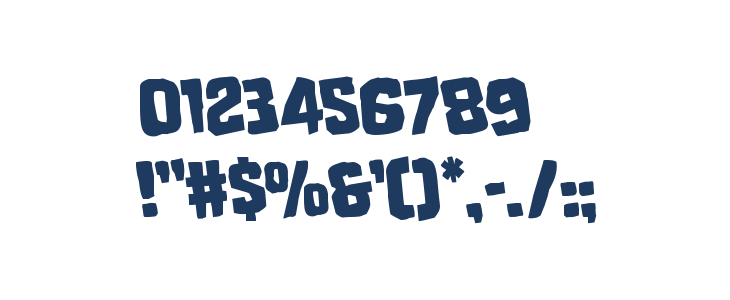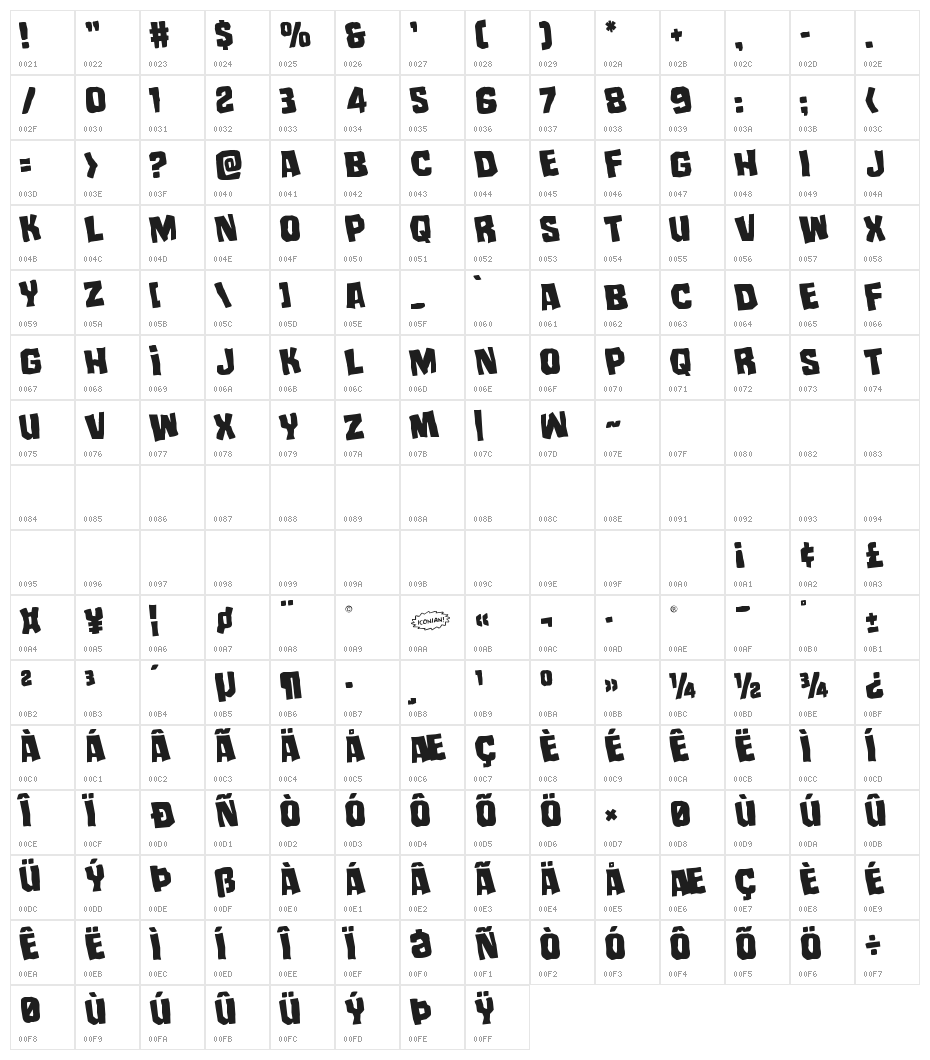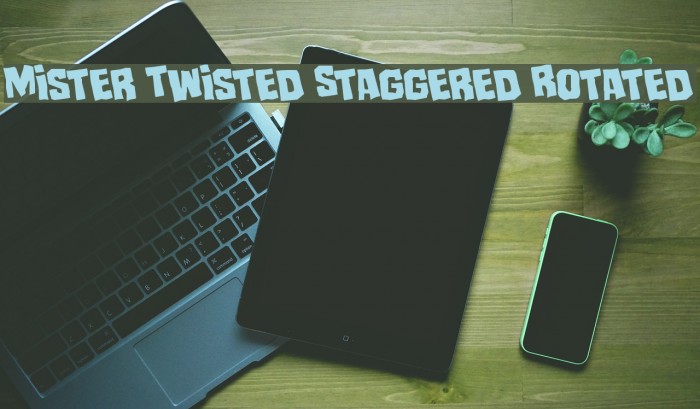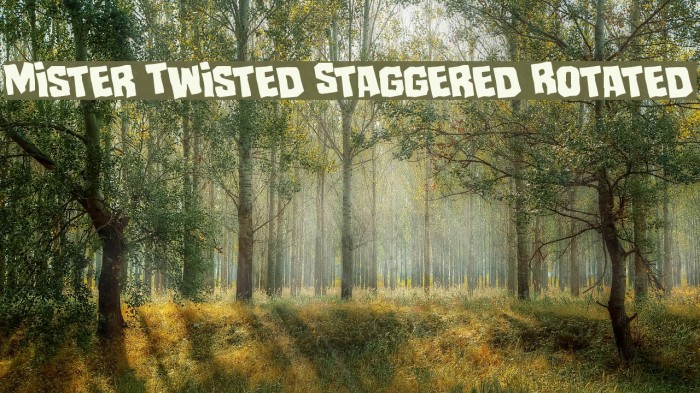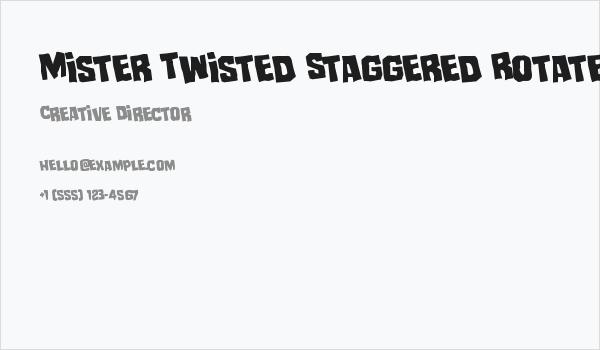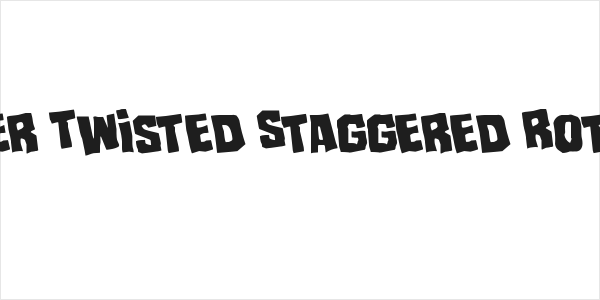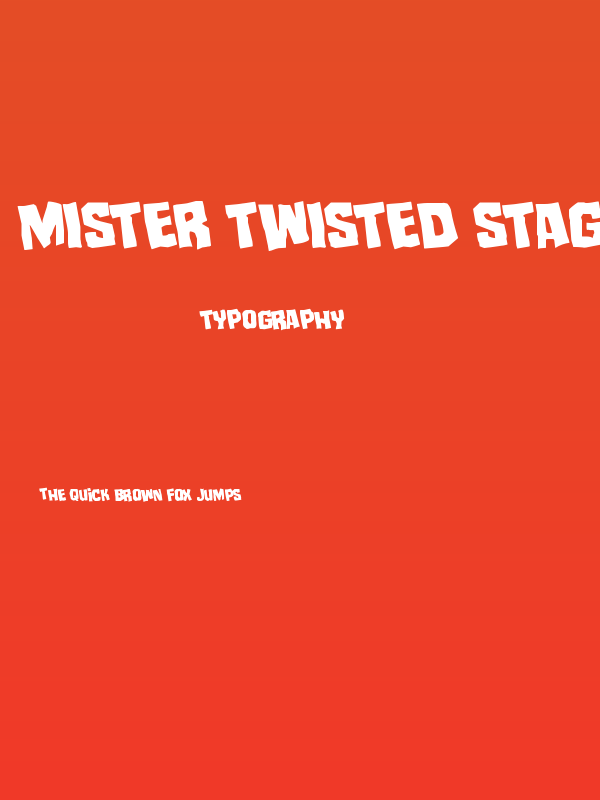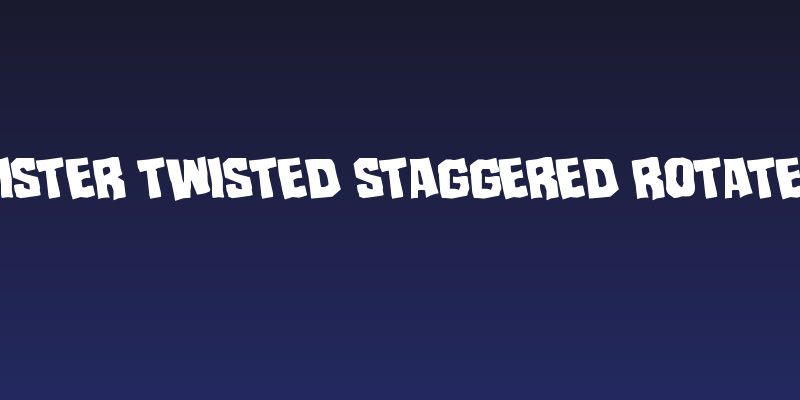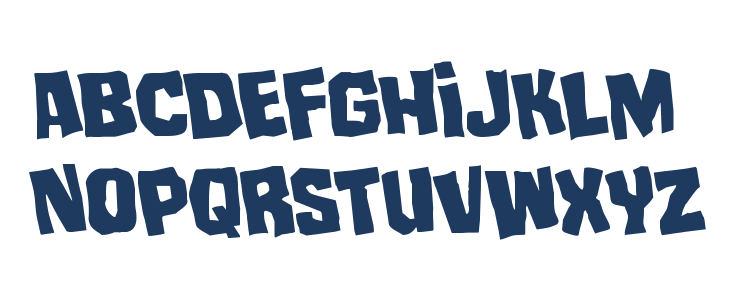
Mister Twisted Staggered Rotated Font
Mister Twisted Staggered Rotated Description
This font features a bold and dynamic style with a twisted, staggered, and rotated appearance. Each character is uniquely distorted, giving it a playful and chaotic feel. The uppercase and lowercase letters maintain a consistent weight, contributing to a cohesive yet unconventional look. The numbers and special characters follow the same design principles, ensuring uniformity across all glyphs. The font's irregular shapes and angles create a sense of movement and energy, making it ideal for projects that require a standout, eye-catching typeface.